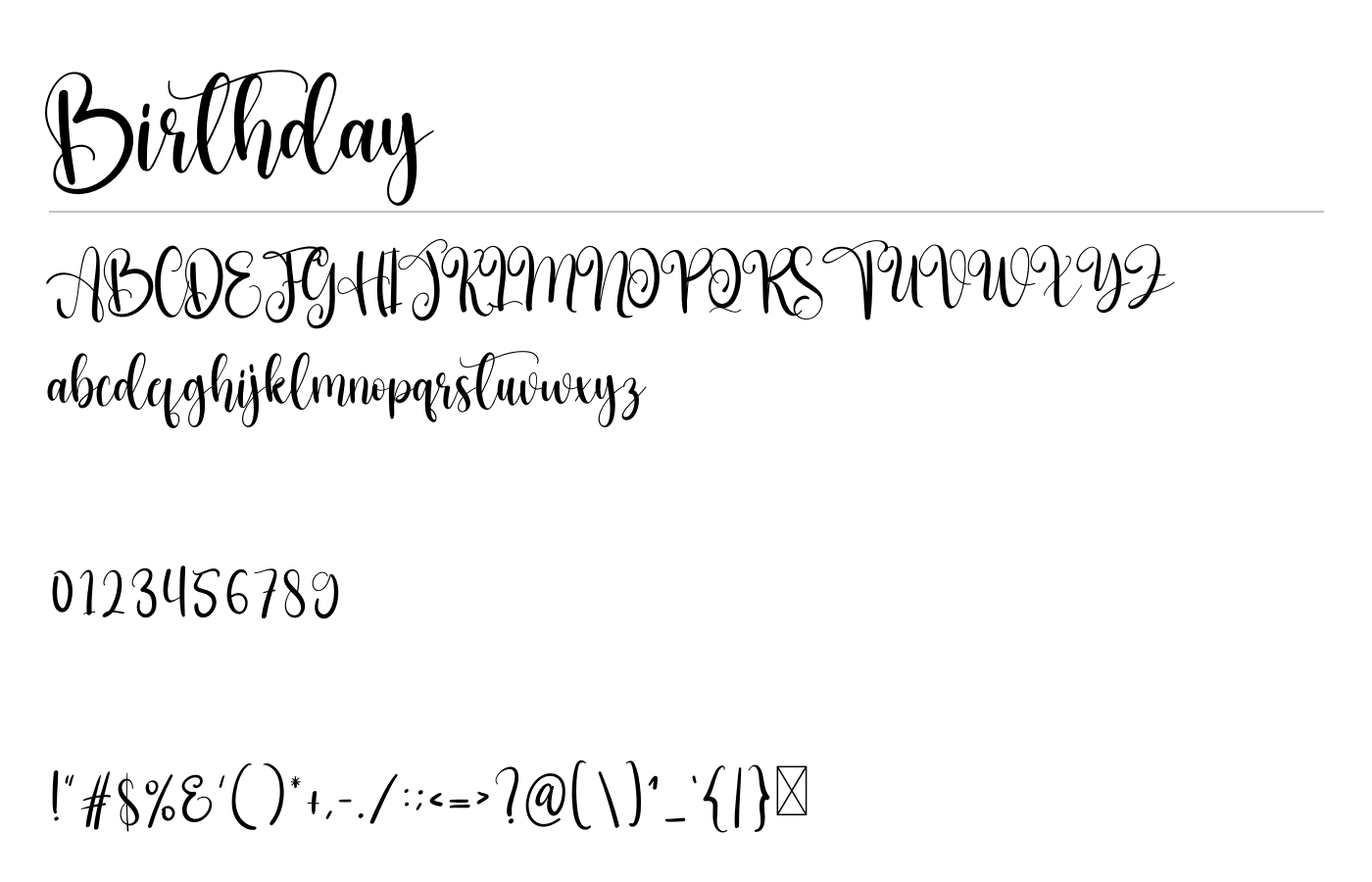
Birthday Font is a playful and elegant script typeface with smooth, flowing strokes and distinctive swashes that evoke a hand-lettered feel. Its balanced weight and decorative flair make it perfect for invitations, greeting cards, and festive branding, adding a charming and personal touch to any celebratory design.
Birthday Font
About Birthday Font